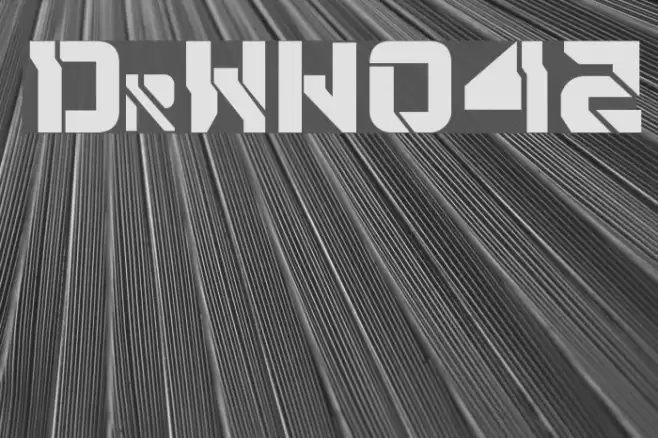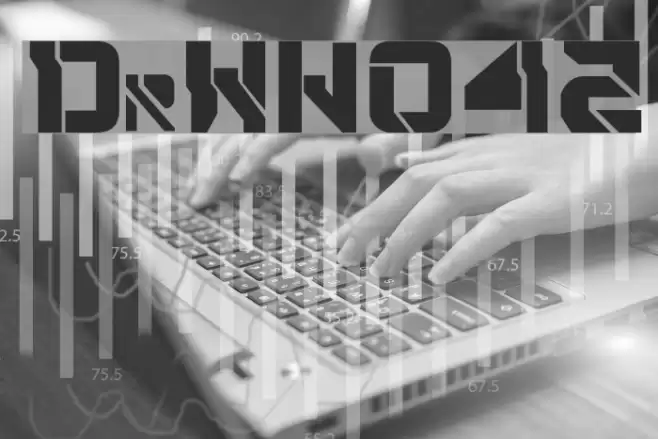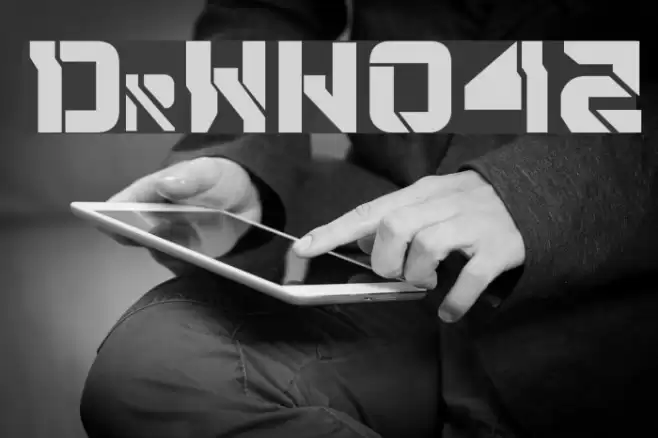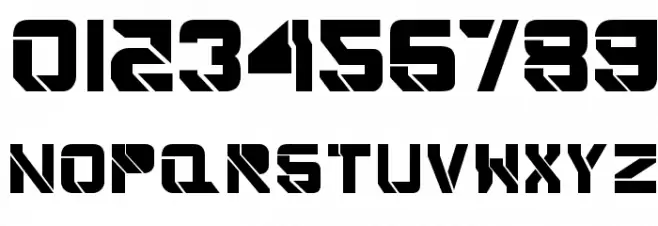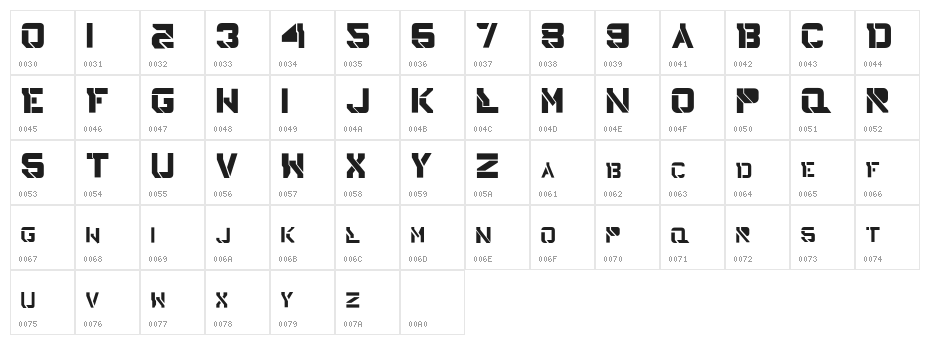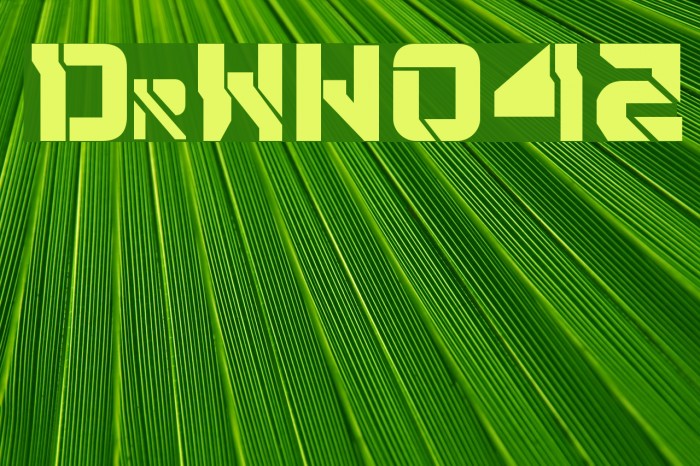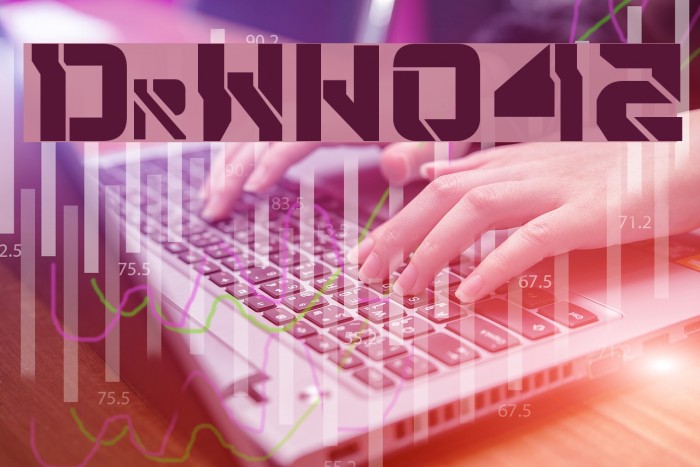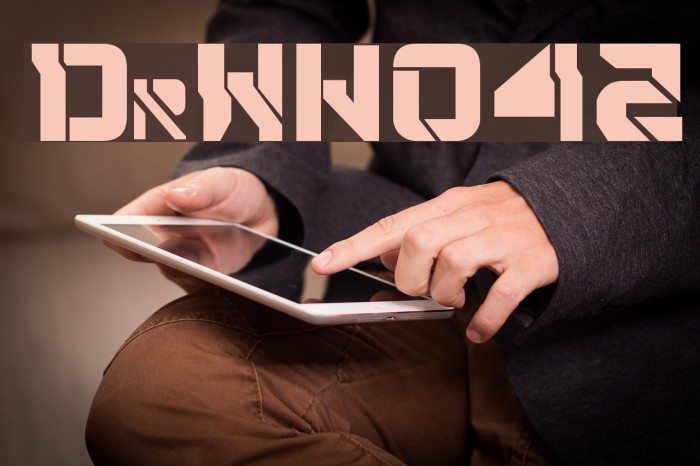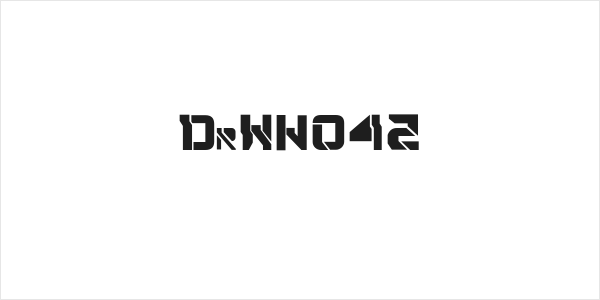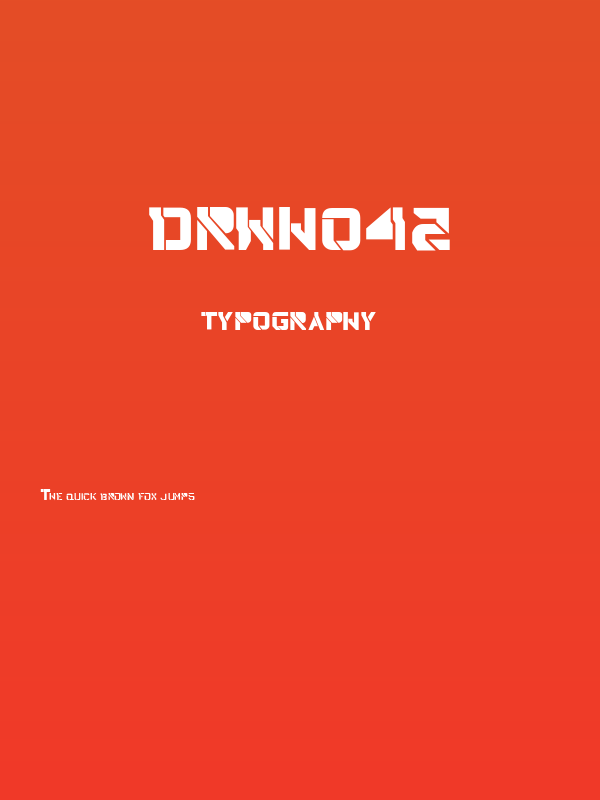
DrWHO42 Font
DrWHO42 Description
This font features a bold, geometric design with a futuristic and industrial feel. The characters are constructed with sharp angles and cut-out sections, creating a sense of movement and dynamism. The uppercase letters are particularly striking, with a uniform height and width that give them a strong, cohesive appearance. The numbers follow the same stylistic approach, ensuring consistency across all characters. This font's unique style makes it ideal for projects that require a modern, edgy look.
A bold, geometric font with a futuristic and industrial design from Uncategorized fonts.
- Proposed Projects: Ideal for sci-fi themed posters, video game titles, technology branding, and futuristic event flyers.